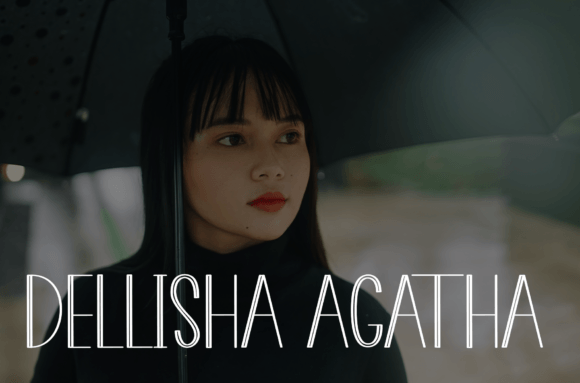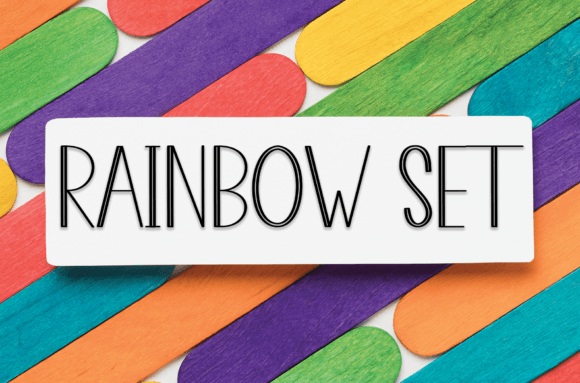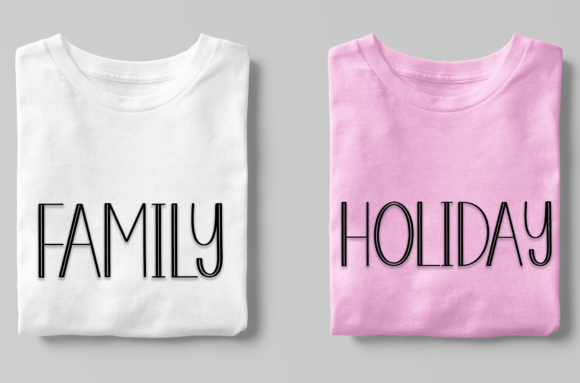
Introduction to Presure Font
As designers, we’ve all been there – staring at a blank canvas, searching for the perfect font to bring our creative project to life. It’s a moment of excitement and anticipation, knowing that the right font can make all the difference in conveying our message and capturing our audience’s attention.
One such font that has been making waves in the design community is the Presure Font, a sweet and friendly handwritten font that exudes warmth and approachability. With its versatility and high-quality design, this font is an ideal choice for writing wedding invitations, cards, or any other design that needs a fun and creative touch.
Key Features of Presure Font
- High-quality design font with a transparent background, ideal for creative projects that require a clean and modern look.
- Features a unique and creative design that sets it apart from other fonts, perfect for designers looking for a distinctive touch.
- Designed with a high resolution of 300 DPI, ensuring that the font looks crisp and clear on both digital and print materials.
- Perfect for designers working on a wide range of creative projects, including logos, branding, and marketing materials.
Honest Review: Presure Font
- ✨ High-quality design: Presure Font has a crisp and clean look that’s sure to elevate any design project.
- ✨ Transparent background: This feature makes it easy to use the font on any background, giving designers more flexibility.
Overall, I’m impressed with Presure Font’s potential. While it may not be the perfect font for every project, it’s a great resource for designers looking for a high-quality, modern font. With a bit more development, I think Presure Font could become a go-to design resource for creatives everywhere.
The Presure Font is suitable for various creative projects, including graphic design, branding, and digital art. Its unique style and high-quality design make it an excellent choice for designers who want to add a touch of elegance to their work.
Tips for Getting the Most Out of Presure Font
To get the most out of the Presure Font, use it on a transparent background to create a seamless design. You can also experiment with different font sizes and styles to create a unique look.